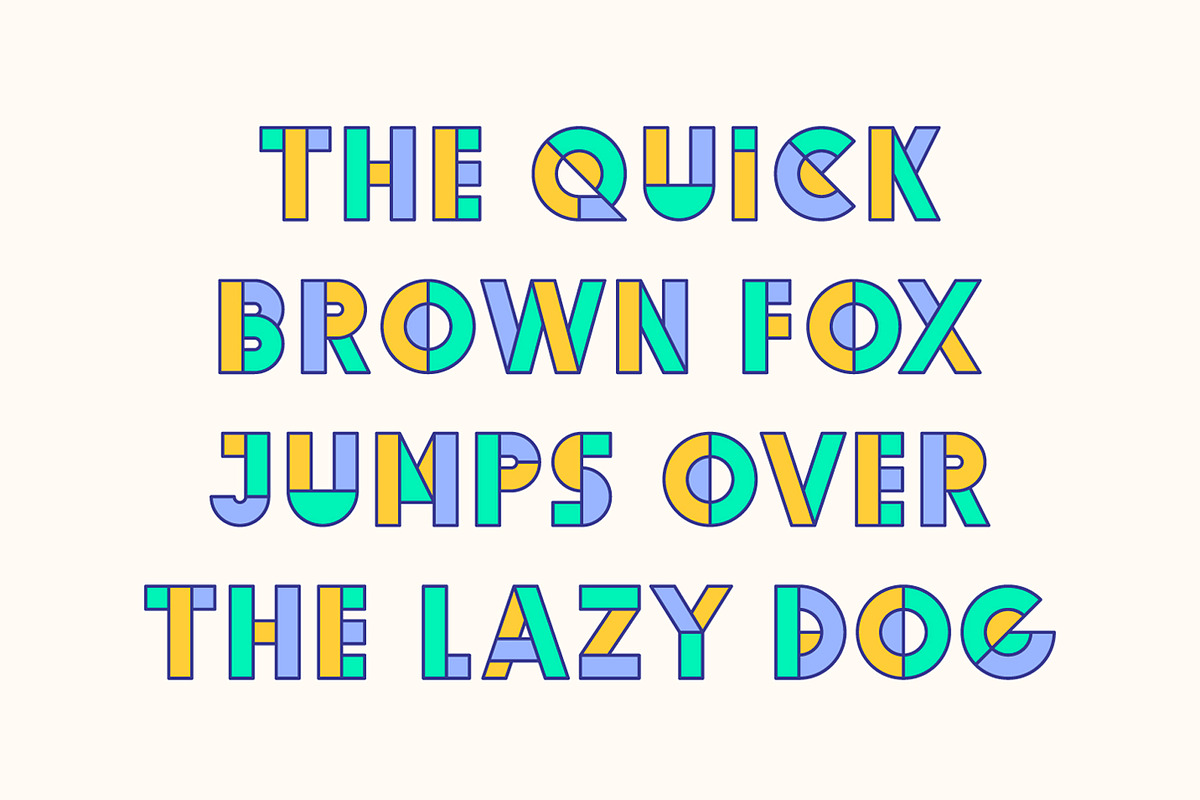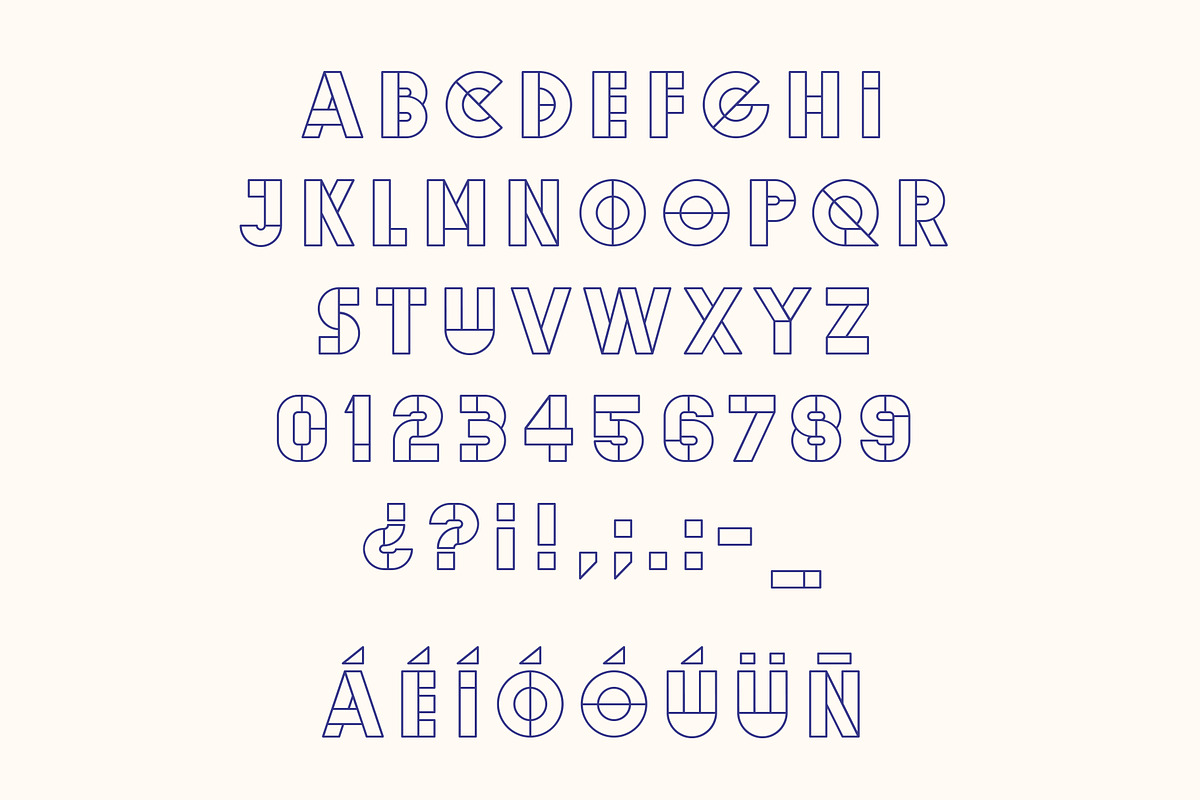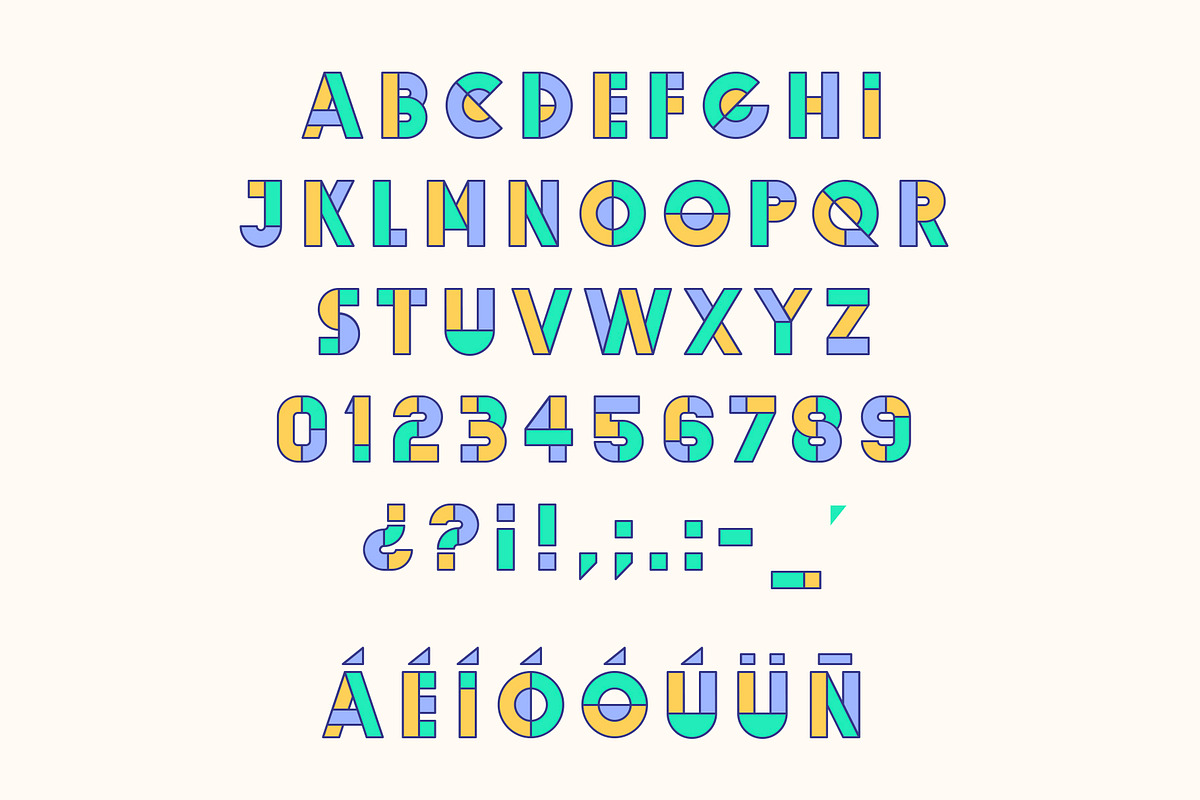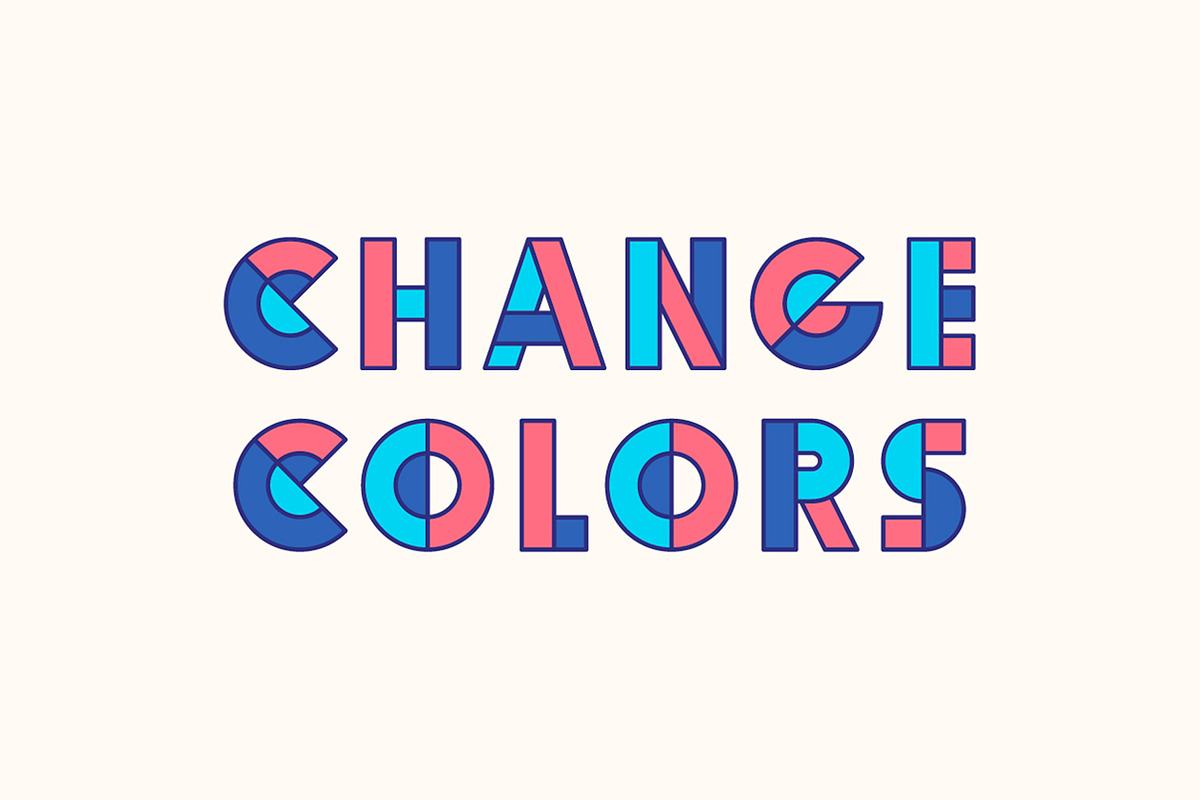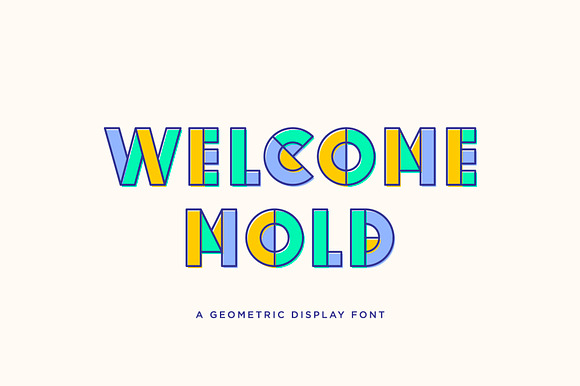
MOLD font
Mold is a geometric display font. It includes a ttf file and an illustrator vector file with color shapes.
MOLD font by M10 fits naturally into Branding, posters, packaging, typography.